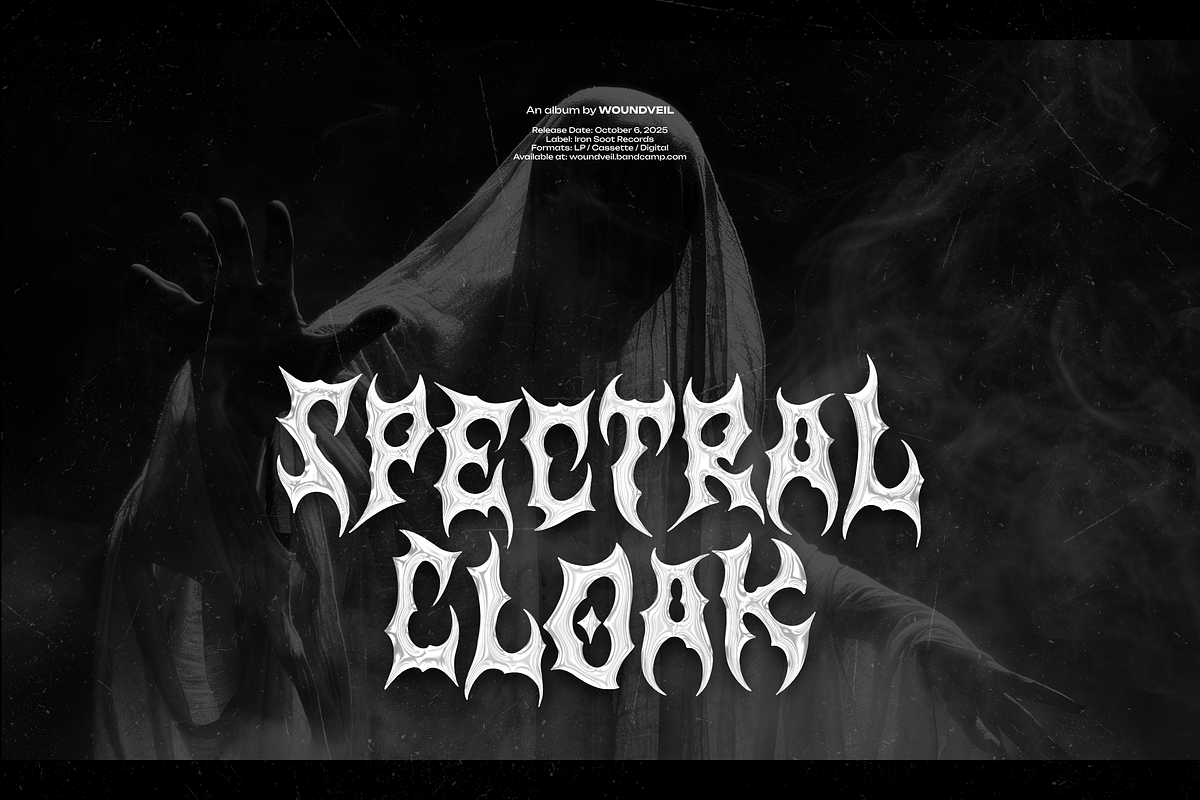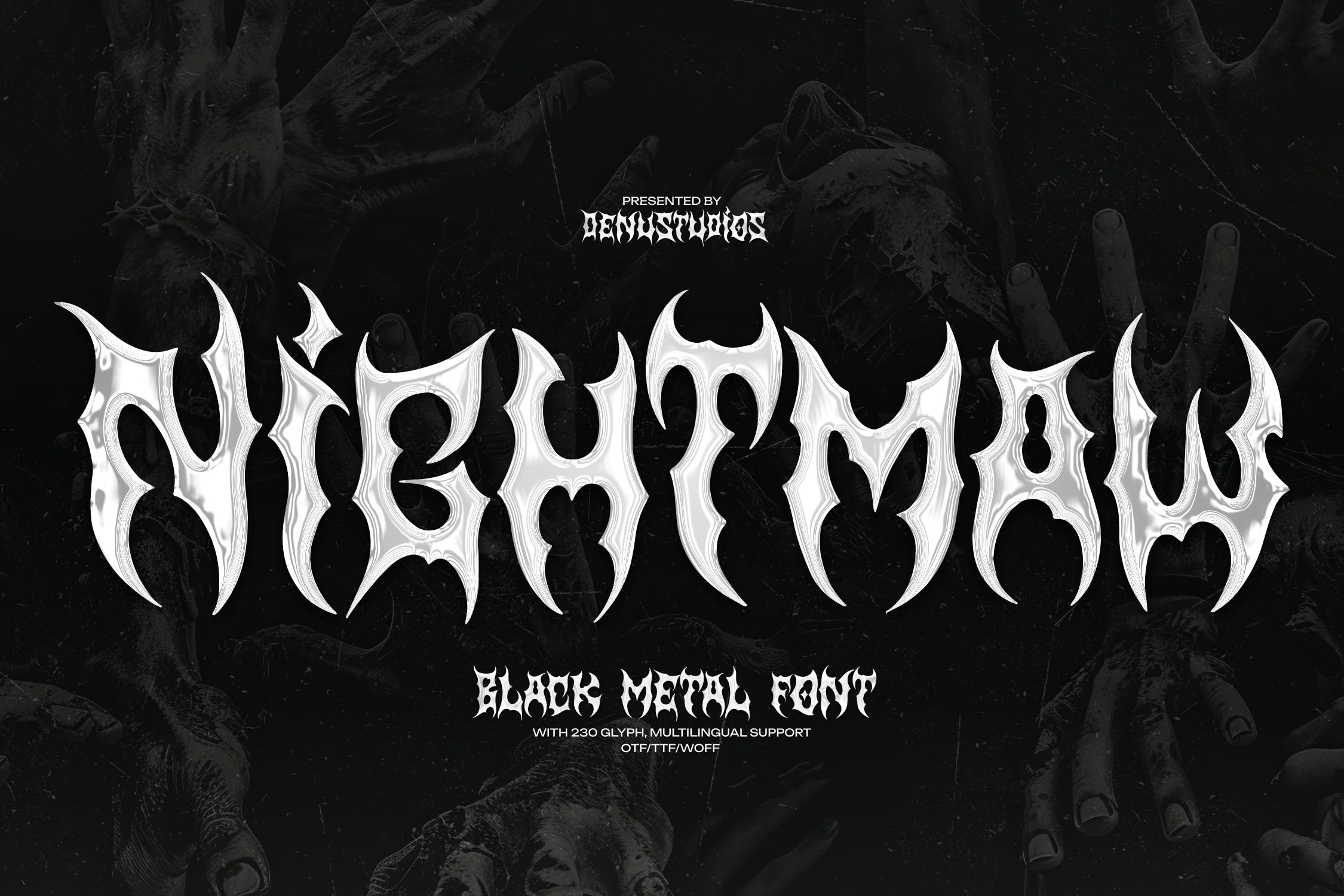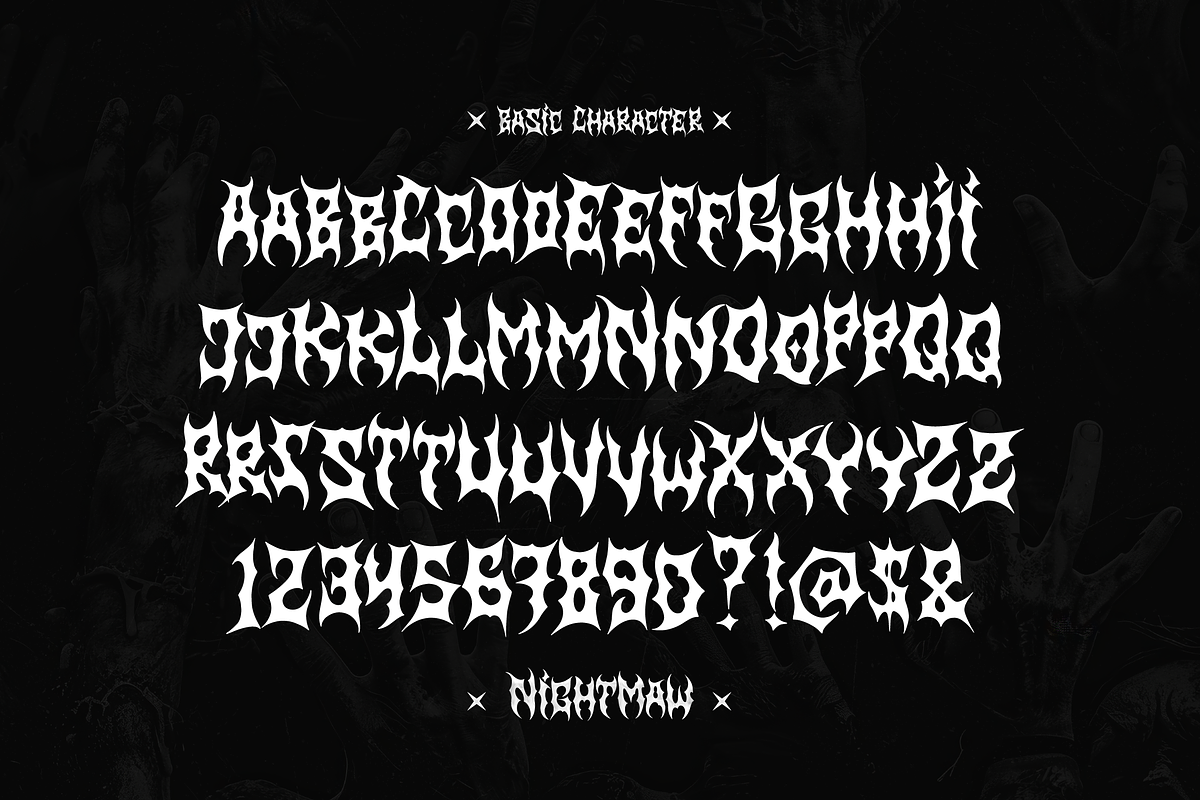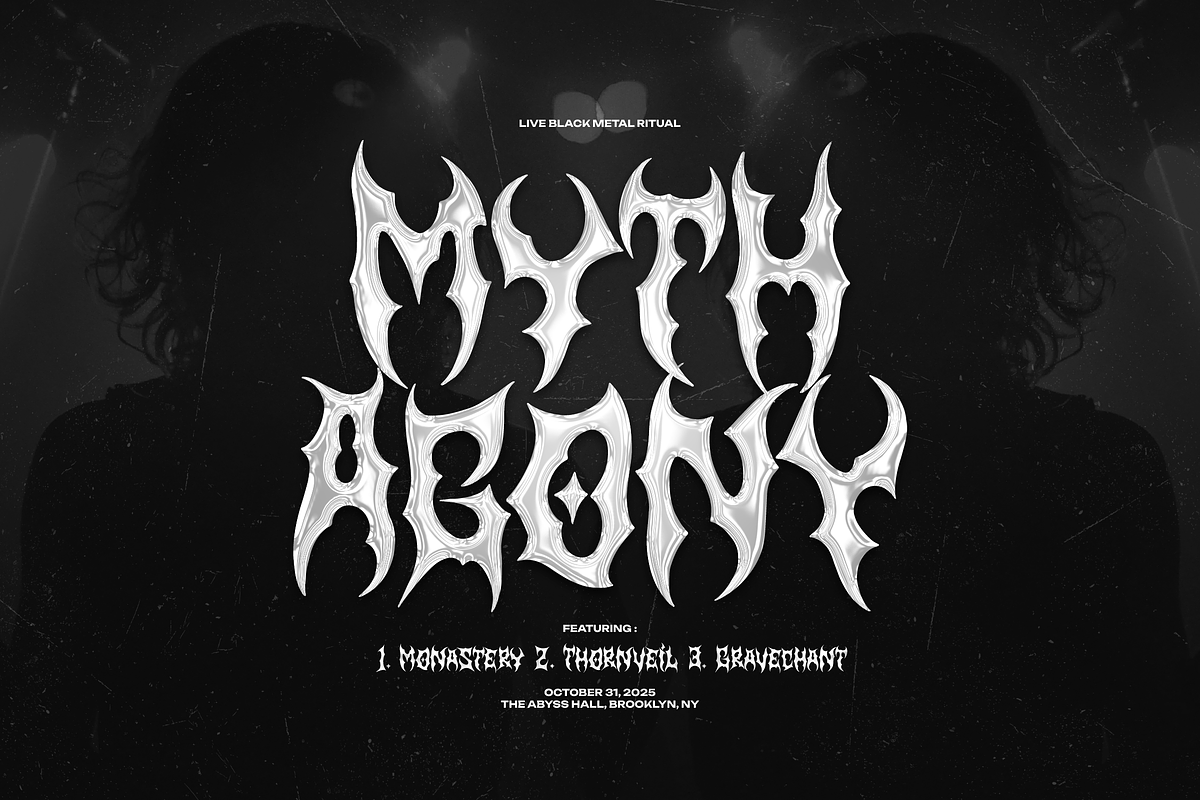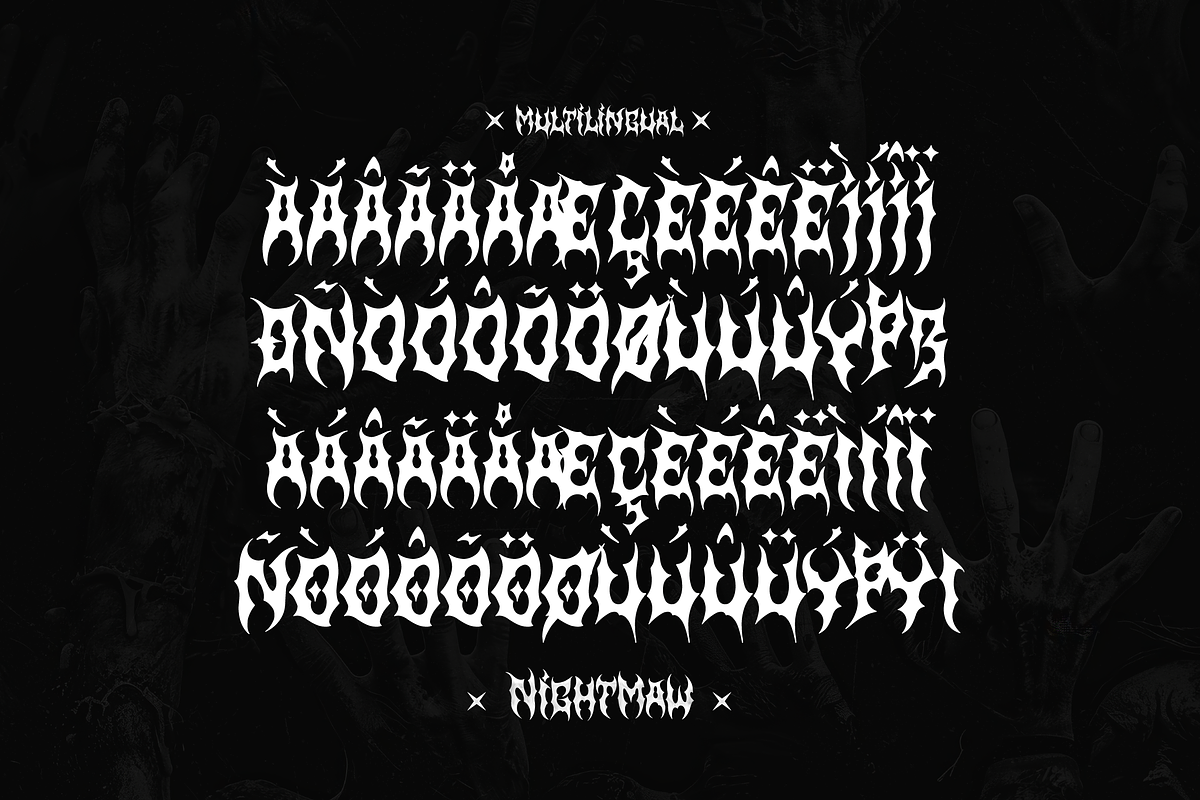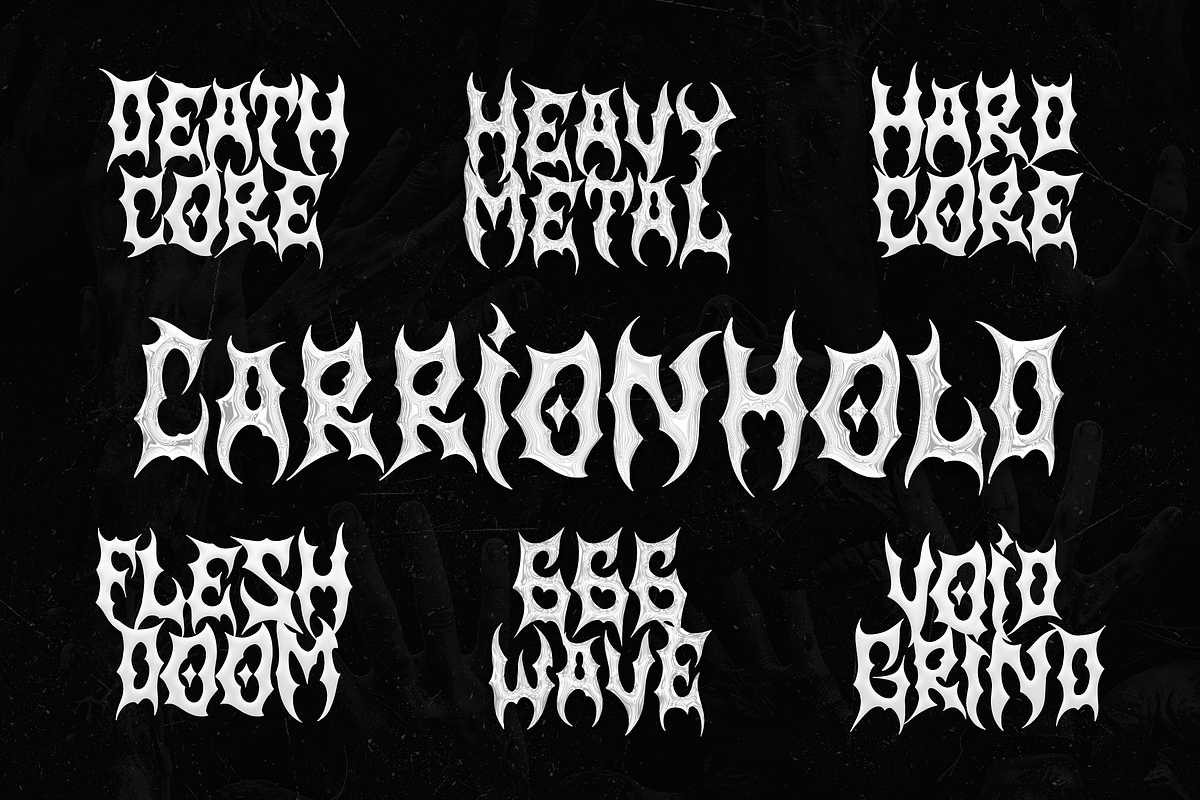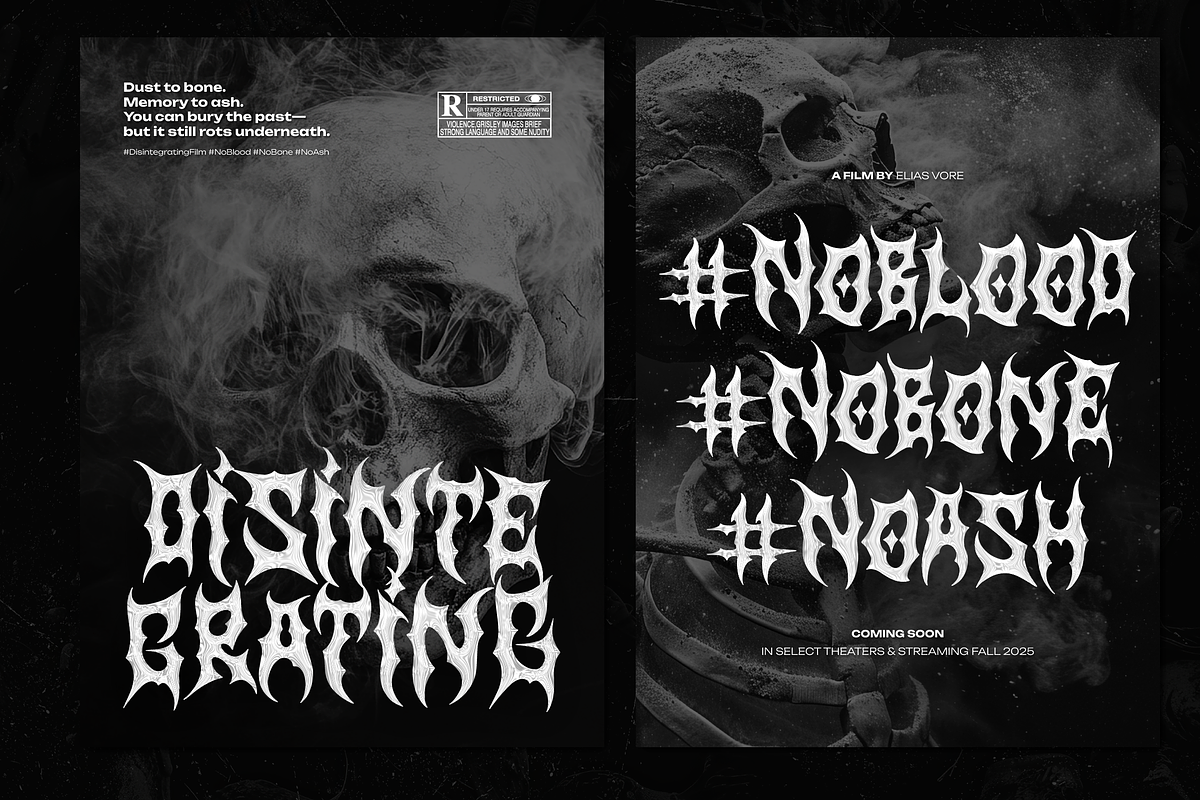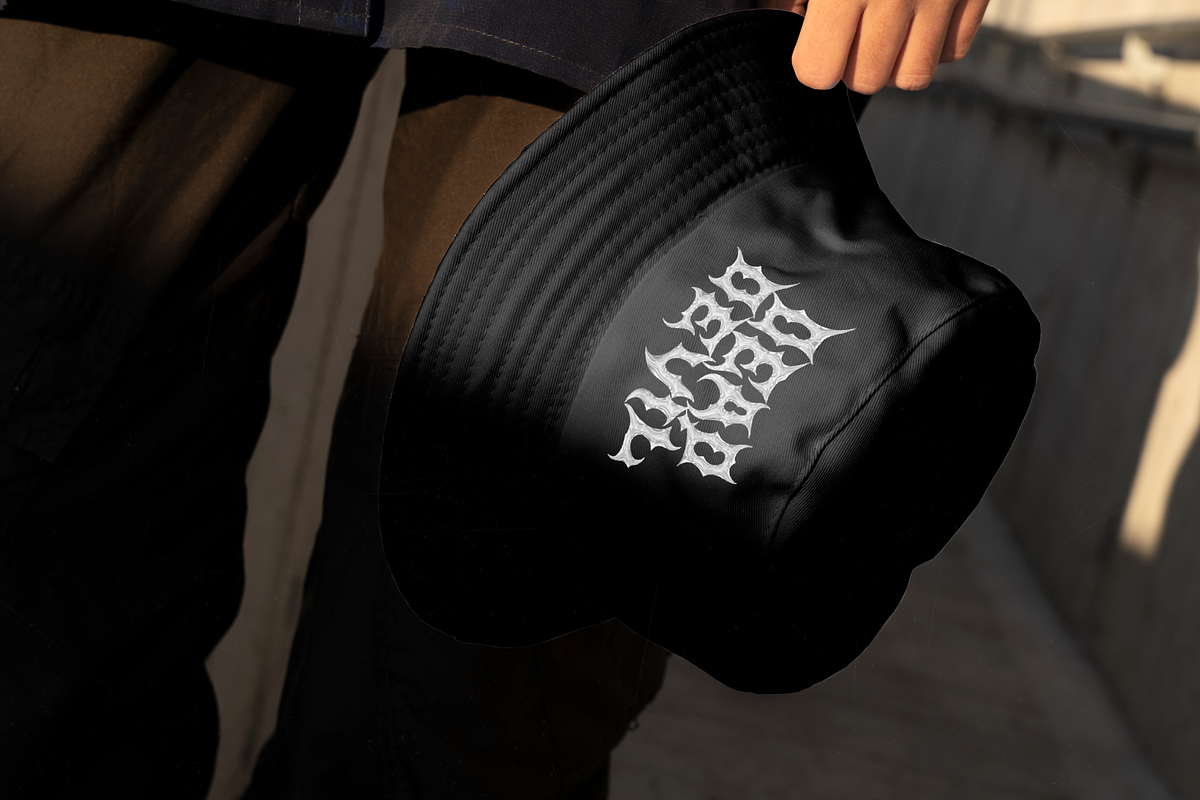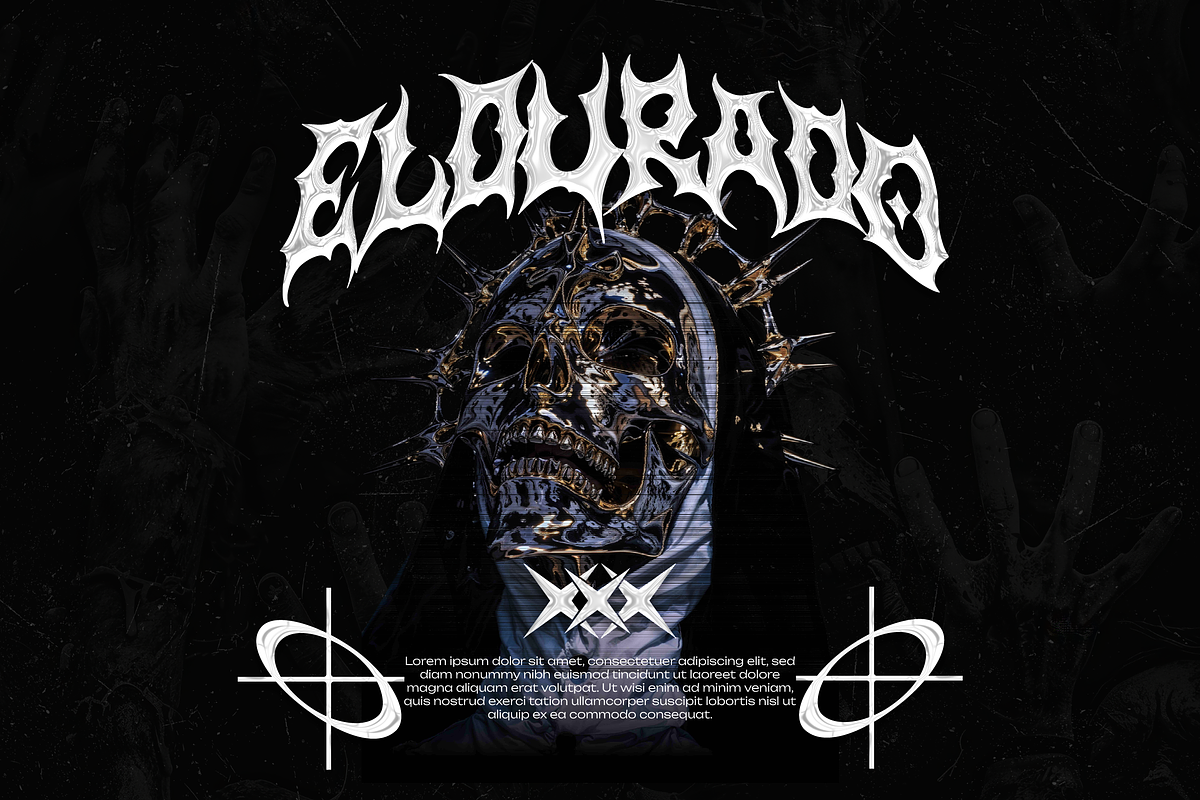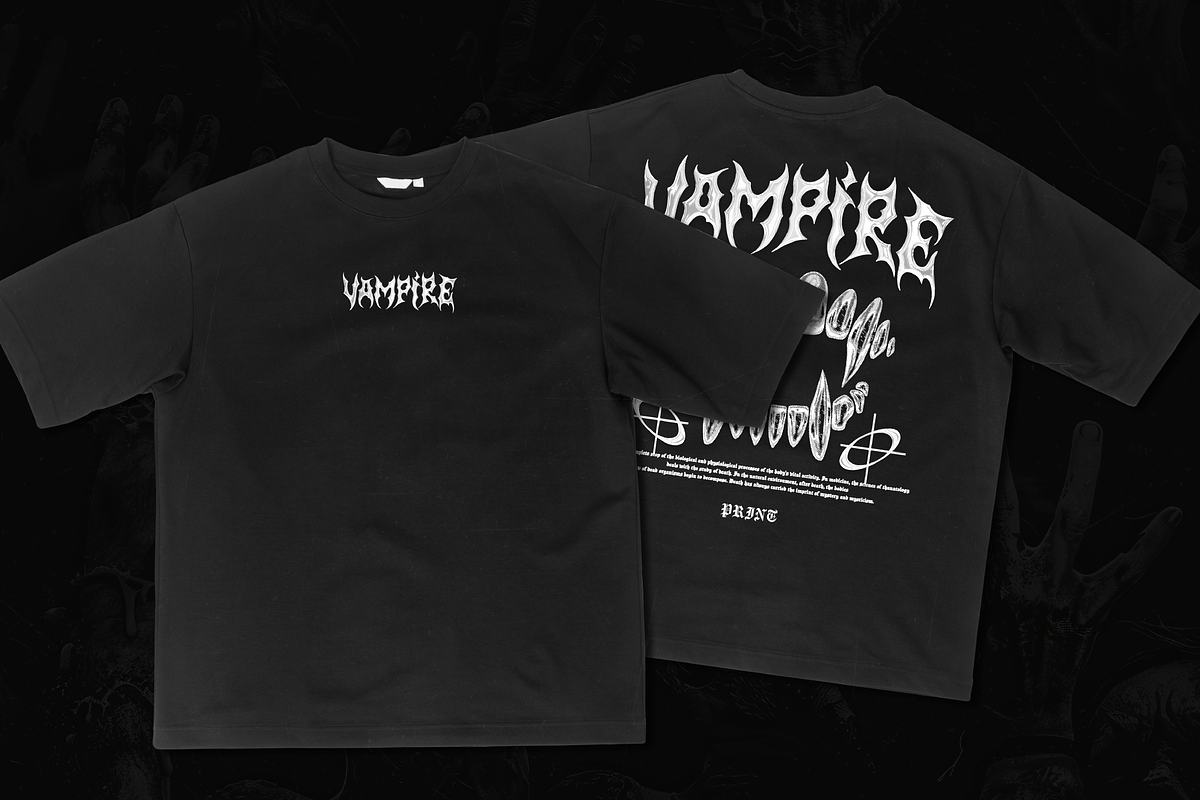
Nightmaw | Black Metal Font
Nightmaw | Black Metal Font, from Denustudios, suitable for any projects such as: logos, branding projects, homeware designs, product packaging, mugs, quotes, posters, shopping bags, t-shirts, book covers, name card, invitation cards, greeting cards, label, photography, watermark, special events, and all your other lovely projects that need a Black Metal Font taste.